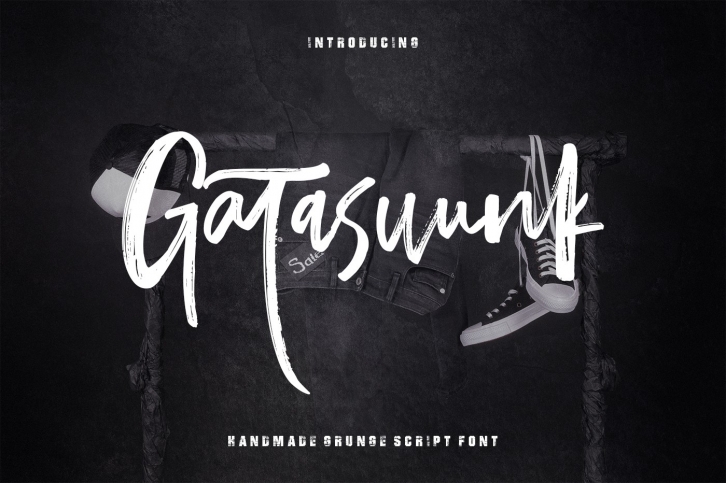
Gatasuunk New Brush is a trendy and unique font with an authentic style. It was designed by DesignDukkan and it's a great choice for creative people who need such a font. It was released on March 29, 2018 and the file size is 18.42 MB. Gatasuunk New Brush will add an organic vibe to any design idea!